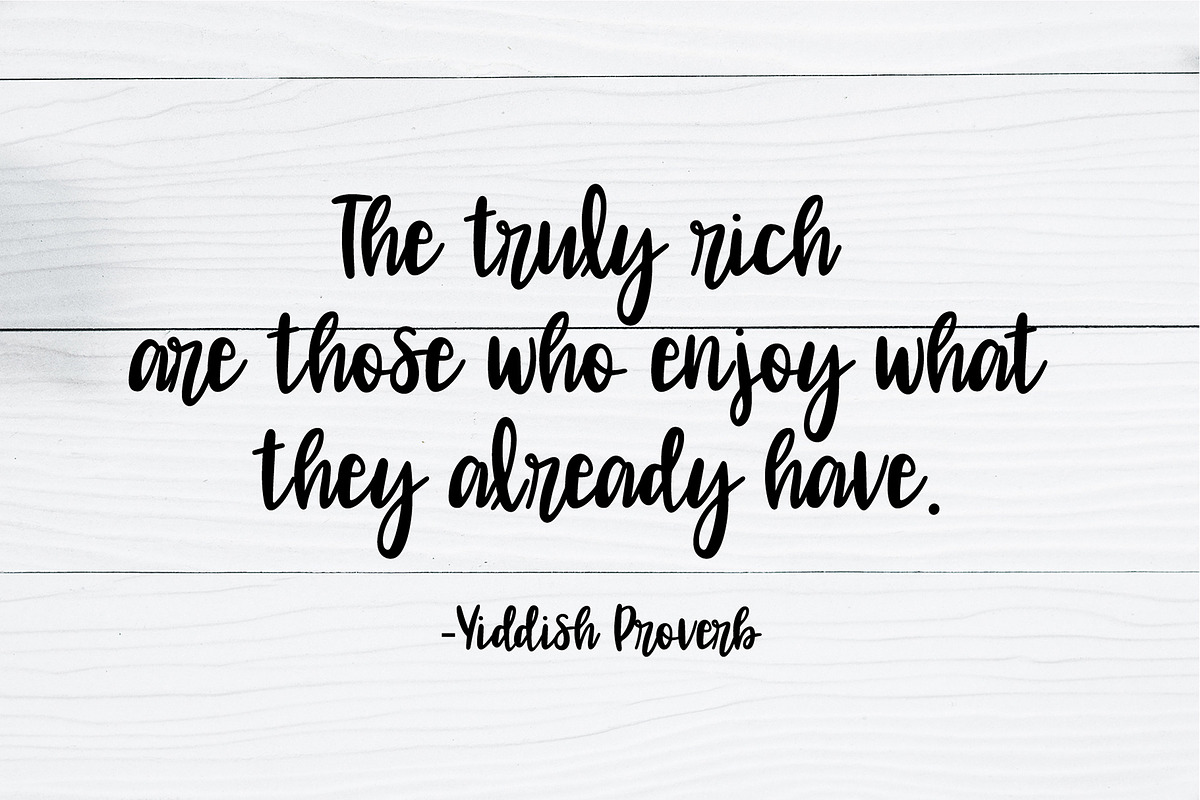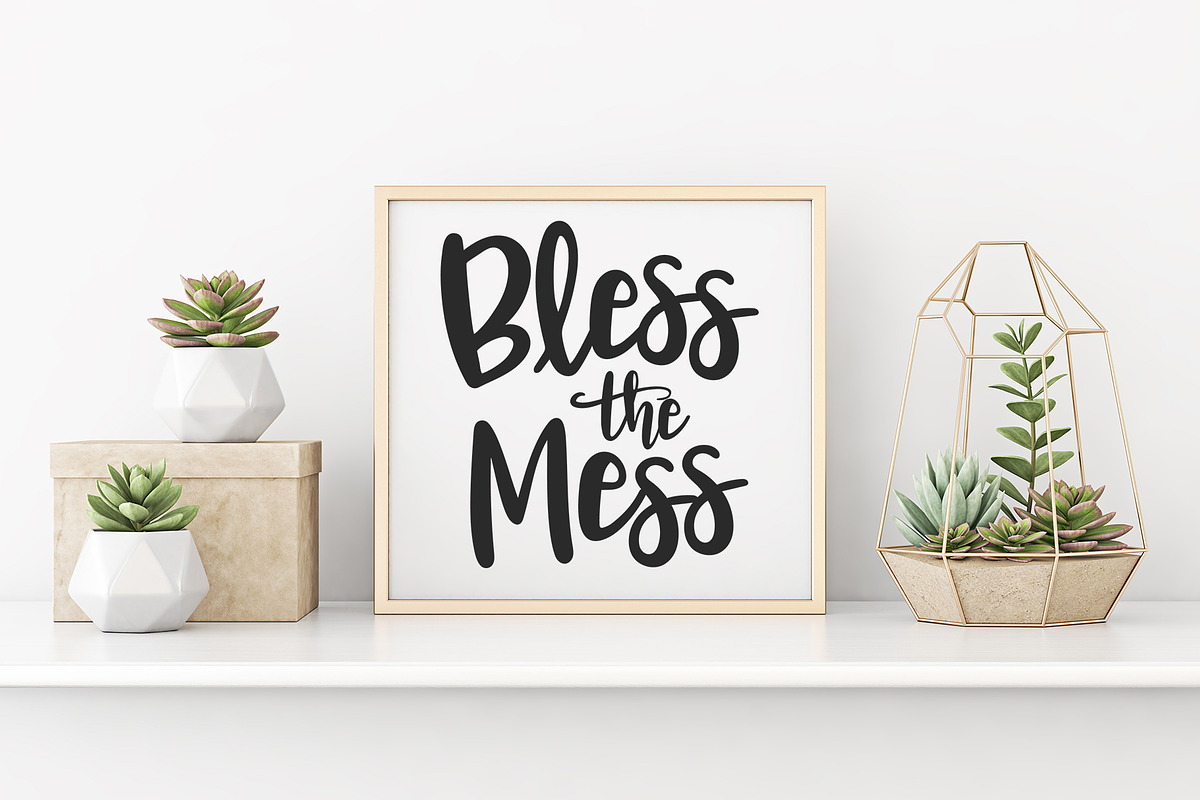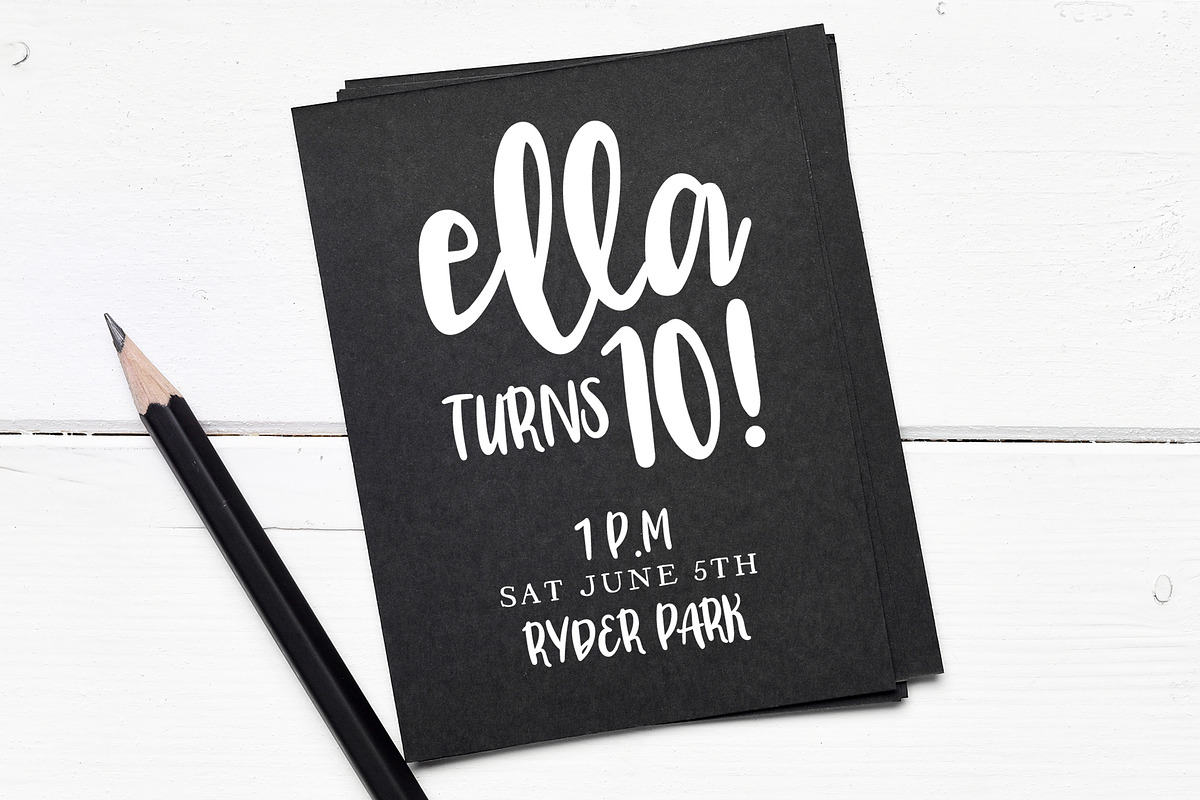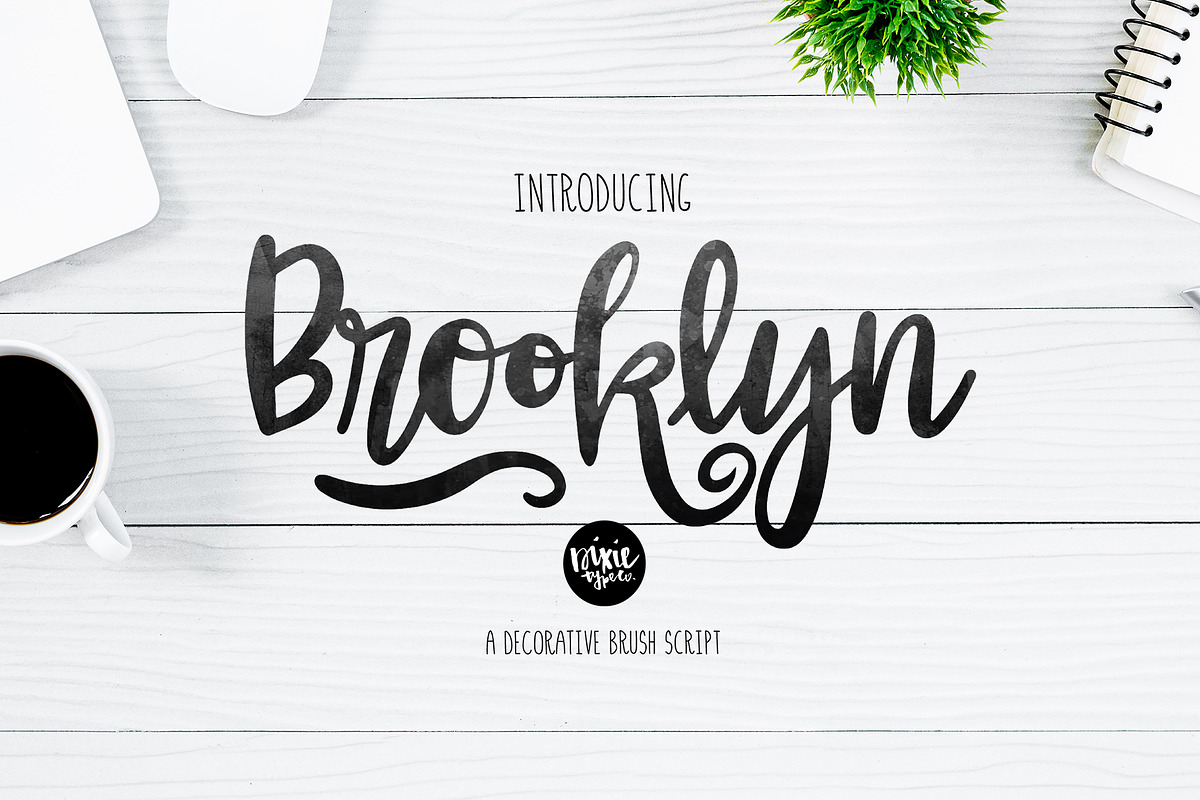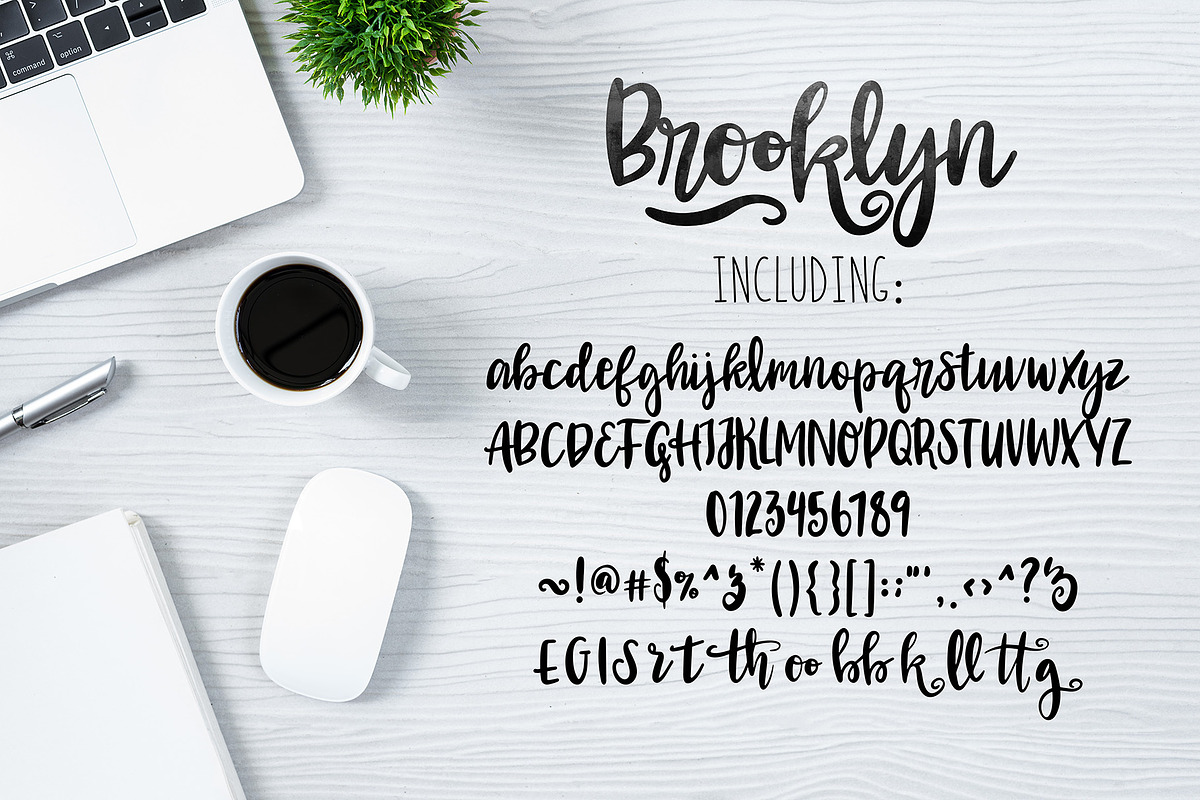
BROOKLYN Bold Script Font
{ A typographic font hand-lettered with love by Dixie Type Co. }
Brooklyn is a bold and decorative hand lettered script font. This font includes a few extra flourish letters and ligatures to make this font pop!
- This font includes a few extra flourish letters and ligatures to make this font pop!
- Font includes: Upper and lowercase glyphs, numbers, and 34 additional characters.